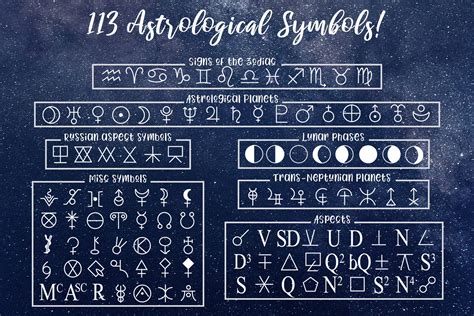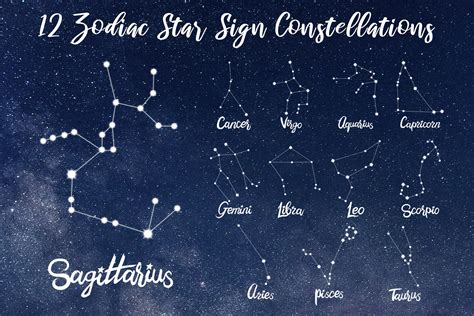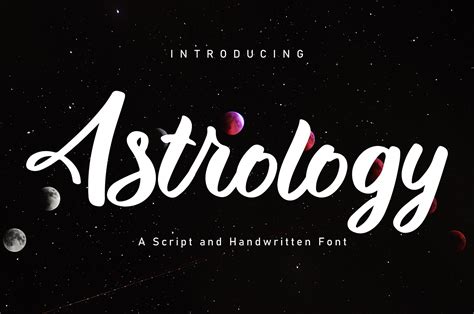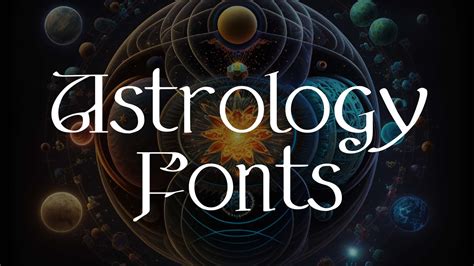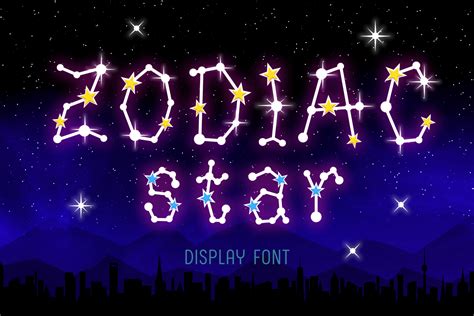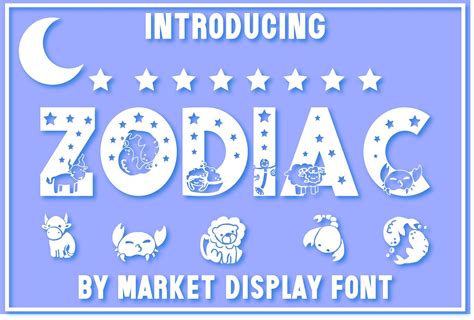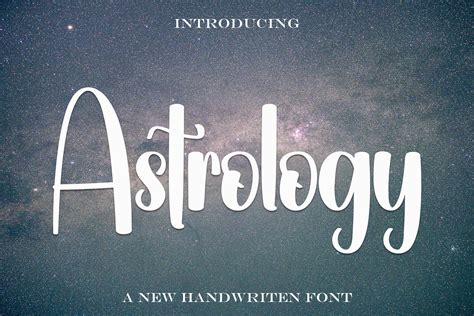
Choosing the perfective Font For Zodiac designing can transubstantiate your astrological branding, invitation, or societal media content from mundane to mystical. Whether you are crafting a birth chart report or designing a logo for an astrology app, the composition function as the optic vox of the stars. In the world of design, astrology is often consociate with elegance, enigma, and ancient wisdom. Thus, take the correct font is essential to elicit the specific vigour of the zodiac signs, ranging from the fiery nature of Aries to the earthy constancy of Taurus. By align your visual aesthetic with the heavenly characteristic of these constellations, you create a deep emotional connection with your audience.
The Psychology of Zodiac Typography
Composition is an essential element of pattern psychology. When you look for a Font For Zodiac themes, you are not just looking for legibility; you are looking for personality. Astrology is a deeply personal subject for many, and the font way should ponder that amour. Serifs frequently convey custom and academic authority, which pairs well with the historical roots of astrology, while sans-serif baptistery proffer a mod, light look that fits the contemporary digital landscape of horoscopes and daily forecasts.
Matching Elements to Typefaces
Astrology is categorized by the four component: Flame, Earth, Air, and Water. Each element dictates a different design approach:
- Fire Signs (Aries, Leo, Sagittarius): These signs command sheer, energetic, and possibly slenderly straiten or show fount that command attention.
- Earth Signs (Taurus, Virgo, Capricorn): Stability is key hither. Think of solid, reliable seriph typeface or minimum, balanced sans-serifs.
- Air Signs (Gemini, Libra, Aquarius): These signaling excel in communication and intellectual. Thin, airy, and modern geometrical face act better to reflect their light and quick-witted nature.
- Water Signs (Cancer, Scorpio, Pisces): Flow is everything. Script fonts, handwritten aesthetics, and graceful, wholesale curves represent the emotional depth of these sign.
Essential Font Styles for Astrological Designs
When curating your design library, it is helpful to understand how specific font categories function within the zodiac theme. A good Font For Zodiac project much swear on contrast, pair a extremely ornamental heading face with a clean, readable body text. This balance ensures that your substance remains accessible while maintaining a wizardly atmosphere.
| Zodiac Constituent | Font Category Recommendation | Visual Vibe |
| Flame | Bold Slab Serif / Distressed | High Energy, Dominant |
| Land | Classic Serif / Humanist | Grounded, Timeless |
| Air | Geometric Sans-Serif | Modern, Analytical |
| Water | Graceful Script / Calligraphy | Fluid, Intuitive |
Tips for Designing with Zodiac Fonts
Formerly you have selected your face, recall to take kerning and tracking. Because many zodiac-inspired designs use thin, graceful fonts, adjust the missive spacing can significantly improve readability. If you are plan for mark, check your case has a all-embracing range of weight to let for proper hierarchy.
✨ Note: Avoid habituate too cosmetic script fonts for long paragraph of schoolbook, as they can get subscriber fatigue and lessen the exploiter experience on wandering devices.
Finally, the effectuality of your plan lies in how well you capture the pith of the hotshot. By thoughtfully choose a fount that align with the elemental push and personality traits of the zodiac, you ensure that your visual communication resonates with the prey hearing. Focus on creating a hierarchy that allows for both artistic verbalism and open readability, as this balance is the stylemark of professional designing. Whether you choose a classic serif for grounding or a liquid hand for emotional connection, the right typeface will always promote the mystic lineament of your astrological work and work your heavenly design to life.